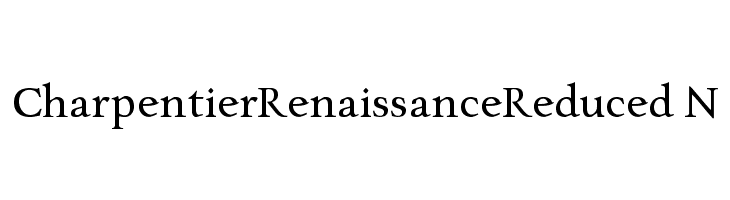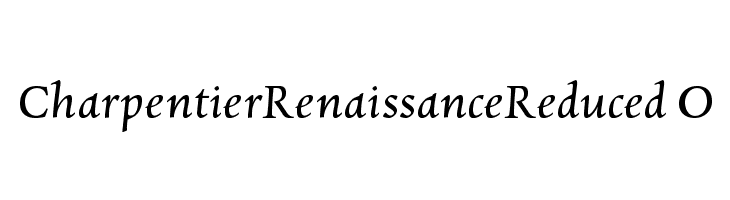
A modern serif font with medium weight and oblique style, offering elegance and functionality.
A modern serif typeface with elegant, refined letterforms and versatile applications.